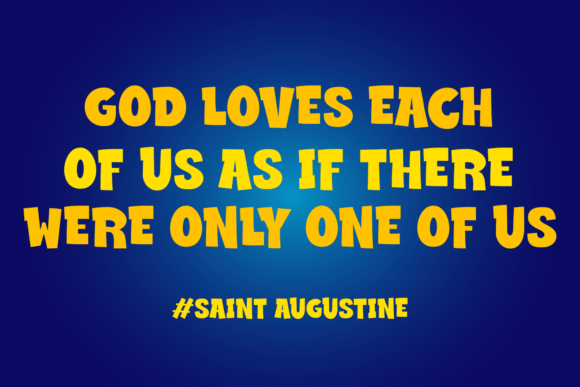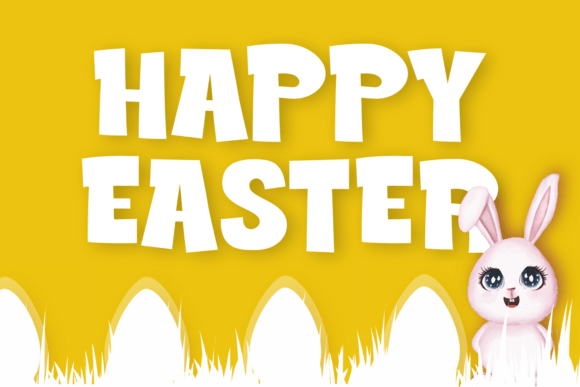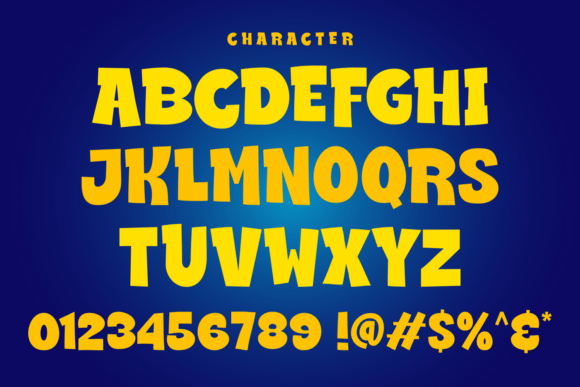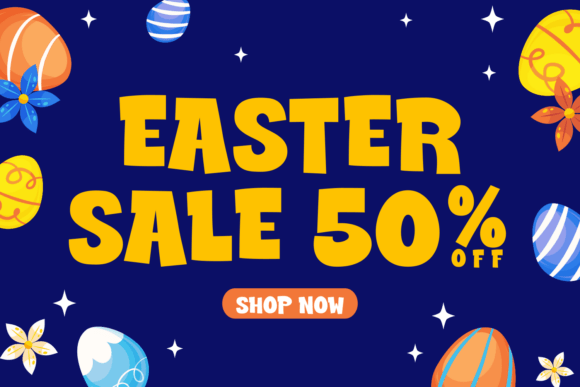
Introduction to Eastiny Font Font
Fonts play a crucial role in design, and the Eastiny Font font is a typeface that brings both character and versatility to any project. Whether you’re working on a branding project, a website, or a print design, the Eastiny Font font offers a unique style that can elevate your work.
Eastiny is a loud and energetic display font designed to turn heads.
With chunky letterforms, sharp angles, and a bold yellow and pink palette, Eastiny brings a retro comic-book style to your design work Itβs perfect for posters, video game titles, YouTube graphics, kidsβ products, and anything that needs a blast of bold personality.
Key Features of Eastiny Font Font
Why Choose Eastiny Font Font?
The Eastiny Font font is more than just a typeface β it’s a design tool that helps you communicate your message with style and clarity. Its unique character set and versatile design make it suitable for a wide range of applications, from elegant invitations to bold headlines.
With its carefully crafted letterforms and balanced proportions, the Eastiny Font font ensures readability and visual appeal across all mediums.
What makes Eastiny Font font special?
The Eastiny Font font stands out with its unique design, exceptional readability, and versatility across various design applications.